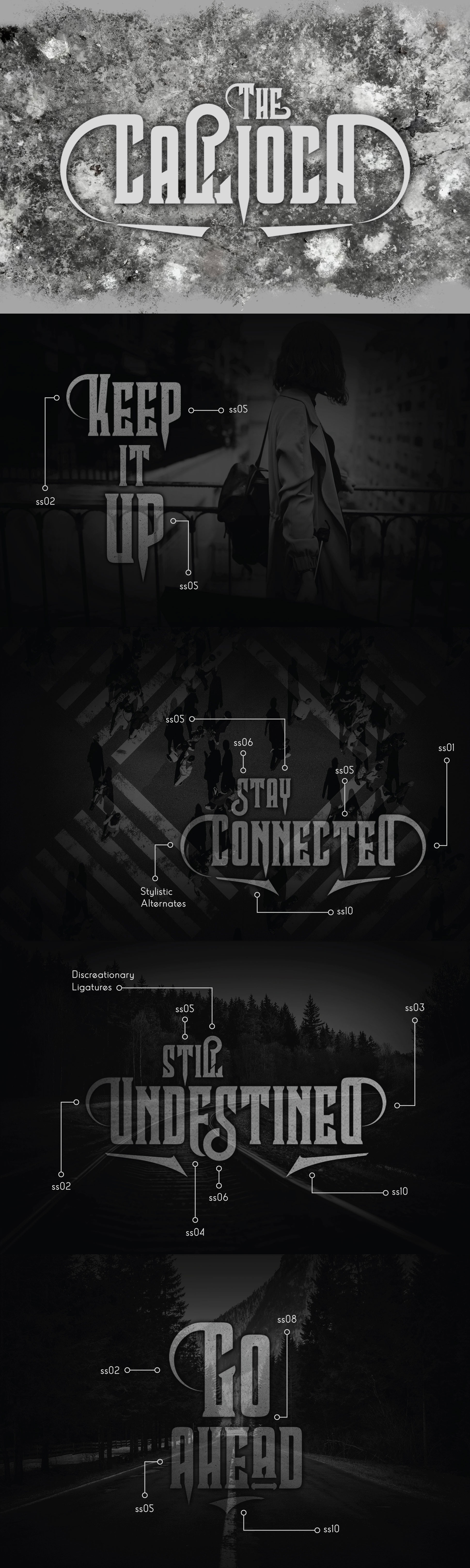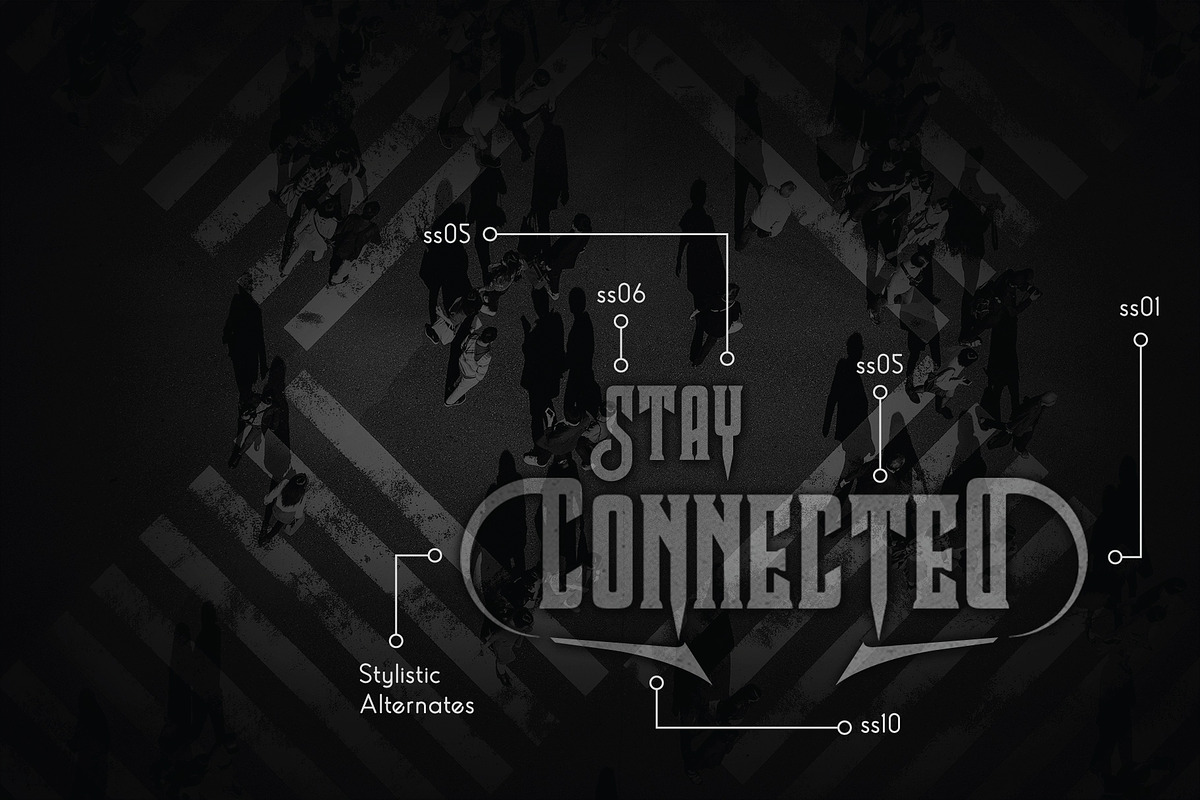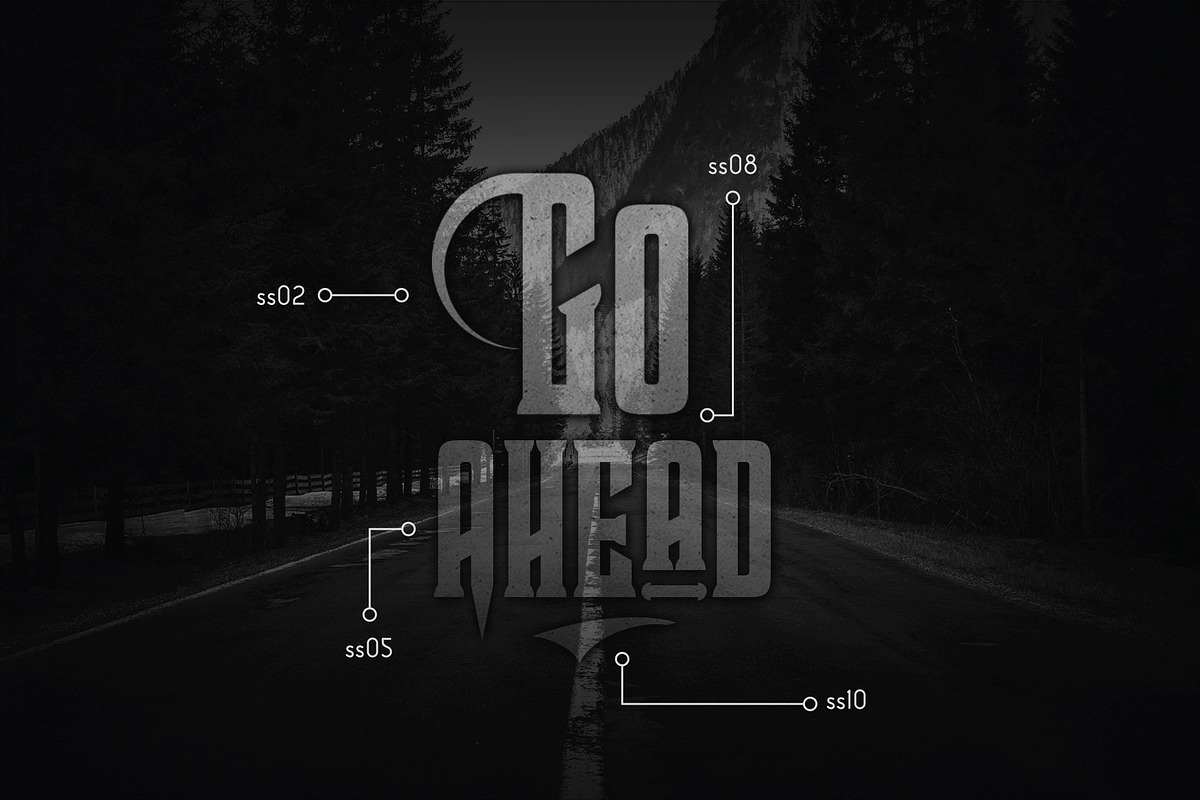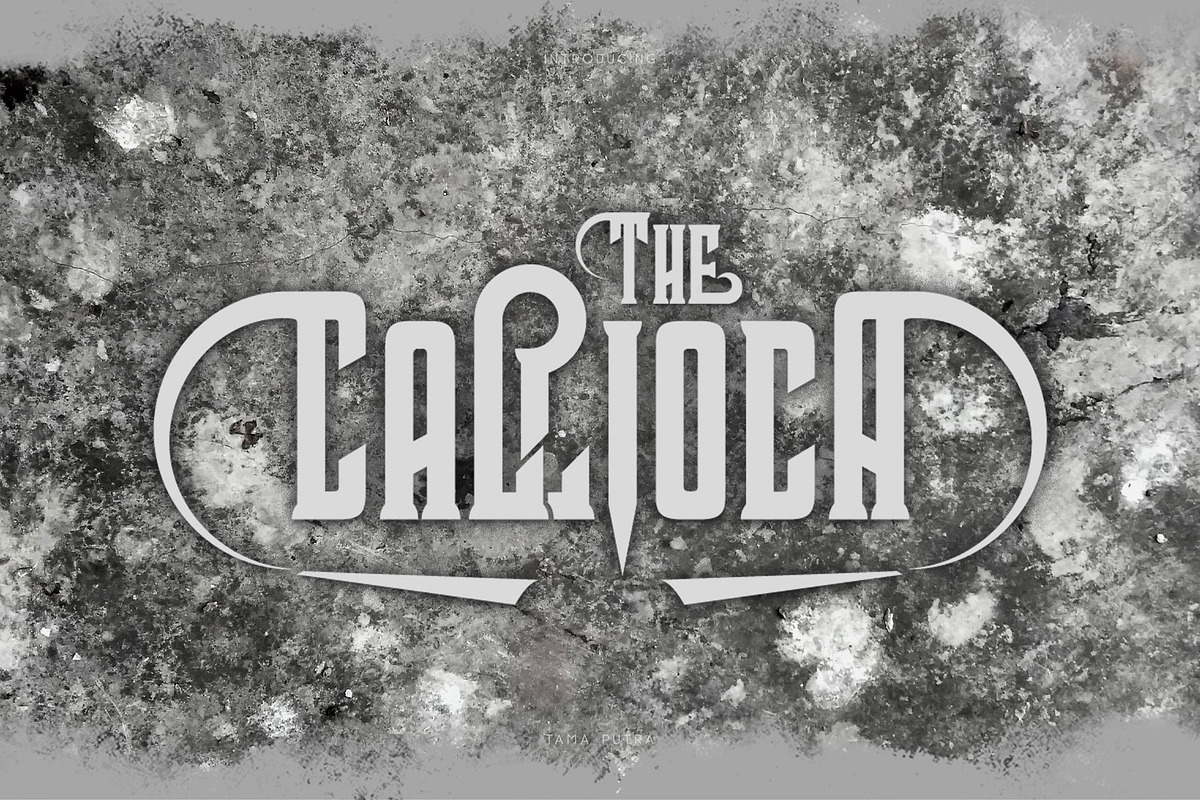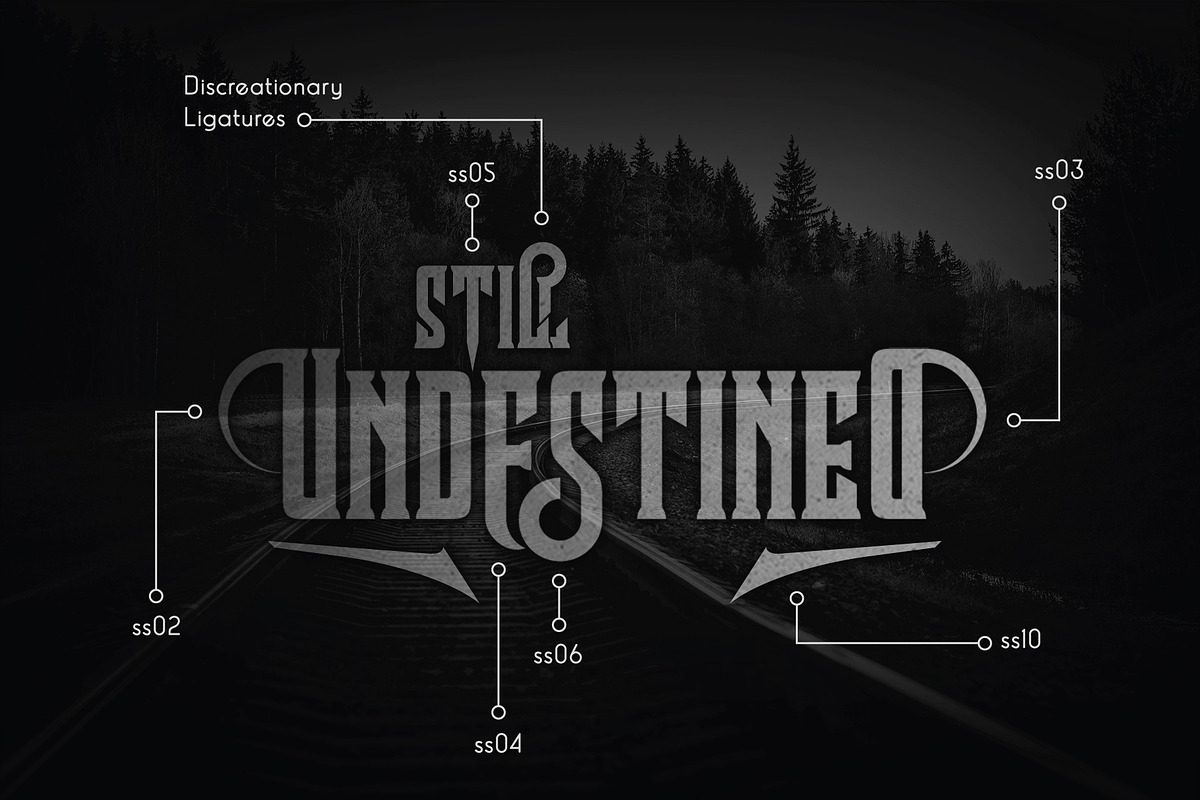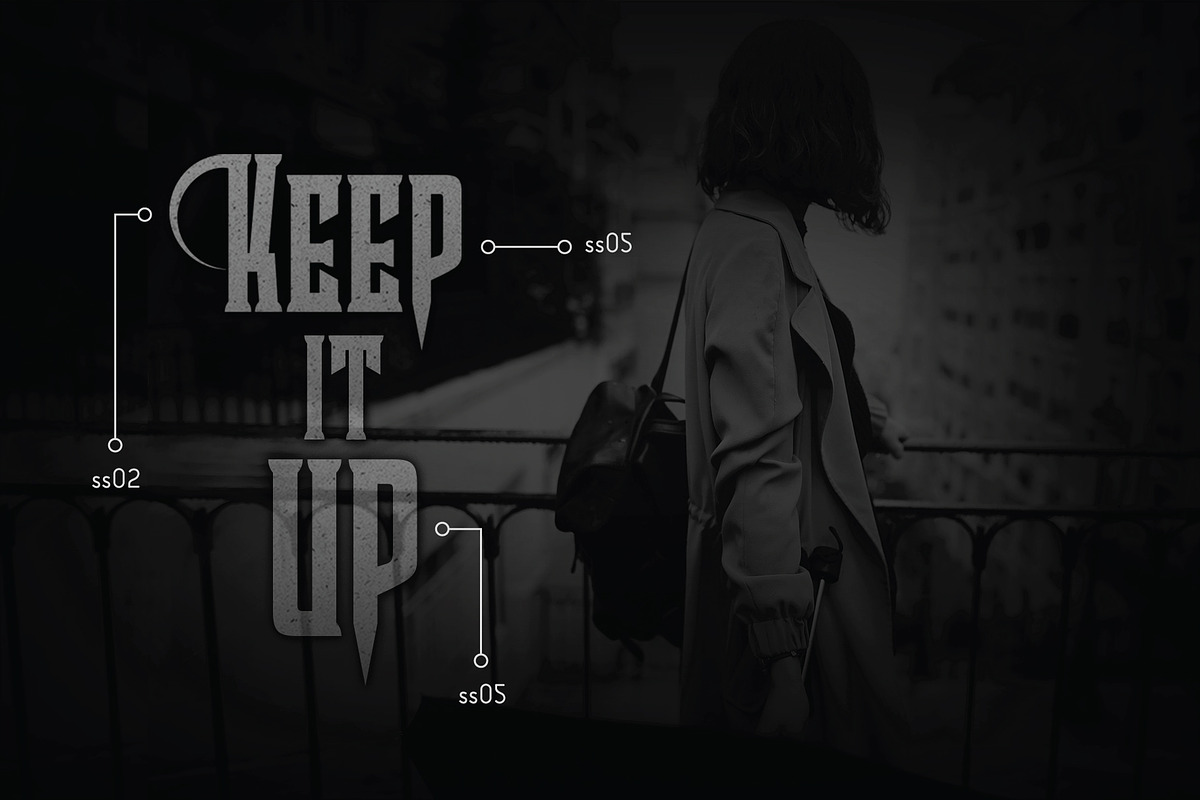
Callioca Decorative Typeface
Callioca Typeface
Callioca is a decorative serif typeface. It has many alternative and ligature glyphs which make it very versatile font and it has multi-lingual also. It provides flexibility to enhance your designs.
- Character Set A-Z (Uppercase & Lowercase)
- Titling
- ss01, ss02, ss03, ss04, ss05, ss06, ss07, ss08, ss09, ss10
- Discretionary Ligatures
Callioca typeface is suitable font for creating beautiful things and many creative work.